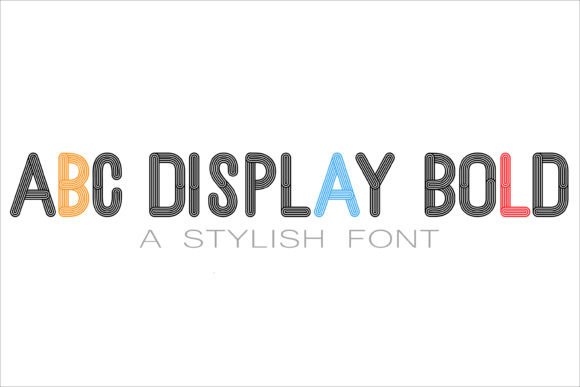
**Introducing ABC Display Bold: The Font That Will Make Your Posters Pop!**
Are you tired of boring, ordinary posters that blend into the background? It's time to unleash your creativity with ABC Display Bold, the font that will transform your posters into eye-catching masterpieces.
Picture this: your poster, emblazoned with ABC Display Bold's playful and energetic letters, capturing attention from across the room. Its unique and captivating form will draw in viewers like a magnet, making your message impossible to ignore.
**Why ABC Display Bold?**
* **A Burst of Cheerful Energy:** ABC Display Bold's lively and engaging design infuses your posters with a vibrant personality. It's the perfect choice for posters that aim to evoke joy, excitement, and a touch of whimsy.
* **Unleash Your Creativity:** Whether you're designing posters for a school project, a community event, or a special occasion, ABC Display Bold provides the perfect canvas for your creative expression. Its versatility allows you to experiment with different colors, sizes, and layouts to create posters that truly stand out.
* **Make a Lasting Impression:** ABC Display Bold's bold and memorable form ensures that your posters will leave a lasting impression on your audience. Its unique design is guaranteed to turn heads and generate buzz, making your posters the talk of the town.